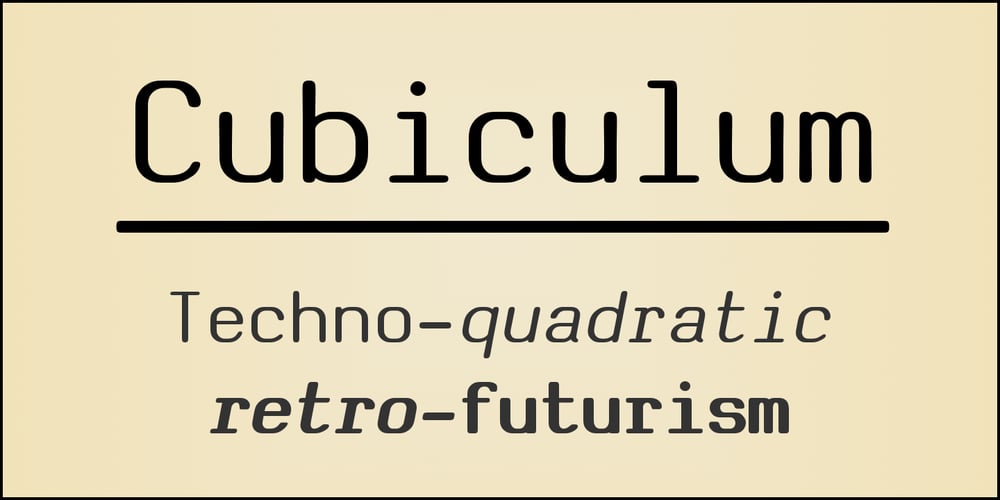
Cubiculum Font Family was designed by Johan Winge and published by Johan Winge. Cubiculum contains 4 styles and family package options. Cubiculum is a clean revival of a kind of font that was widely available for different electronic typewriters in the 80s and early 90s. Typically, each manufacturer had their own slightly different design, and also their own name for this font: commonly known as Cubic, it was also marketed as Techno, Report, Block, and Quadro. Whatever the name, what they all had in common was their clean, crisp squareness, which managed to be at the same time technical and personal, strict and friendly, reminiscent as much of the 60s as of the future.